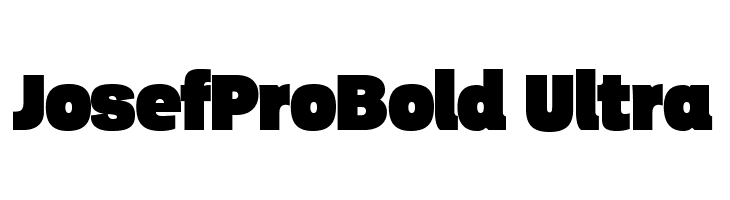
• JosefProBold-Blackreduced caratteri
A bold, modern typeface with strong, uniform letterforms.
• JosefProBold-Italic caratteri
A bold, italicized typeface with a modern and dynamic style.
• JosefProBold-Italicreduced caratteri
Bold, italicized typeface with a modern and dynamic style.
• JosefProBold-Regularreduced caratteri
A bold, modern sans-serif font with clean lines and a slightly condensed width.
• JosefProBold-Ultra caratteri
A bold, geometric typeface with strong, uniform strokes for impactful design.
• JosefProBold-Ultrareduced caratteri
A bold, modern font with thick, uniform strokes and a strong geometric structure.
• JosefRed-Black caratteri
A bold, geometric font with uniform stroke widths and a modern aesthetic.
• JosefRed-BlackItalic caratteri
Bold, italicized typeface with a strong, dynamic presence.
• JosefRed-Bold caratteri
A bold, modern sans-serif font with clean lines and a slightly condensed width.
• JosefRed-BoldItalic caratteri
A bold, italicized font with a modern and dynamic style.